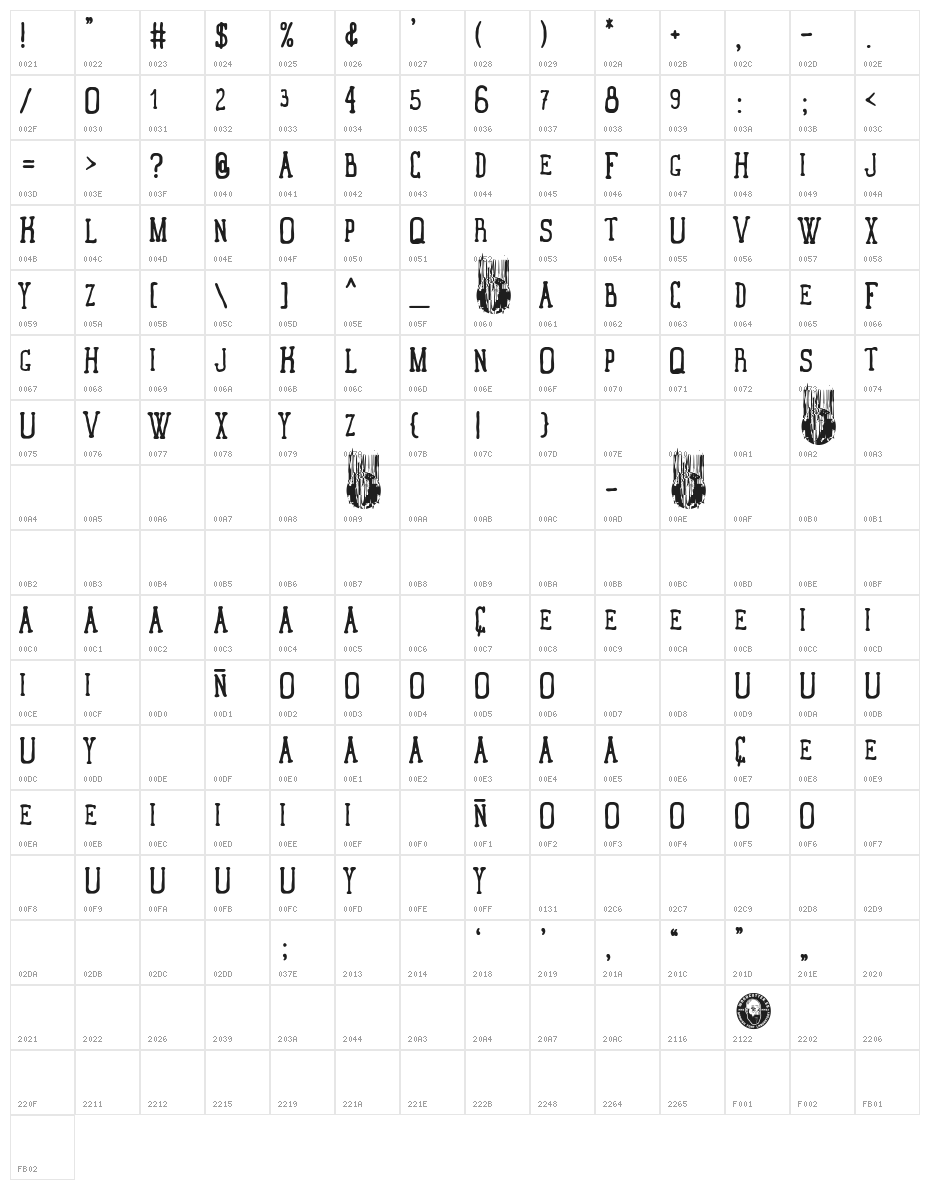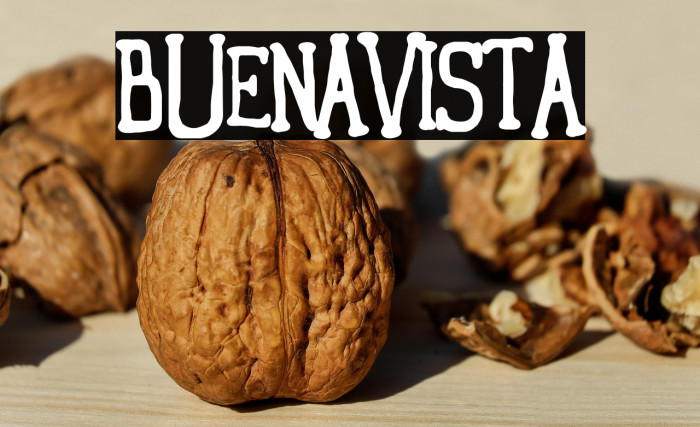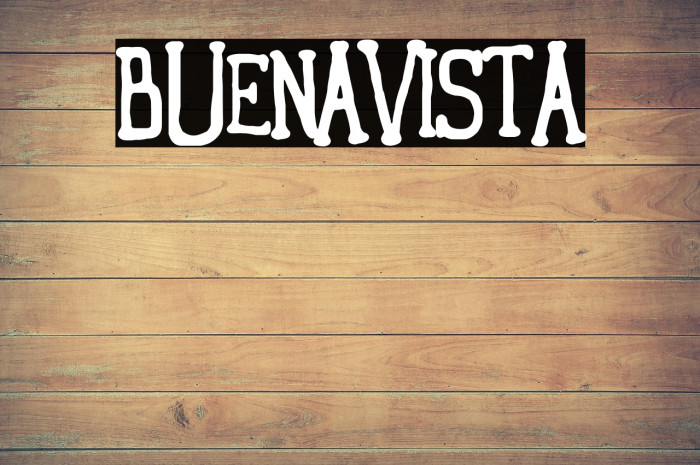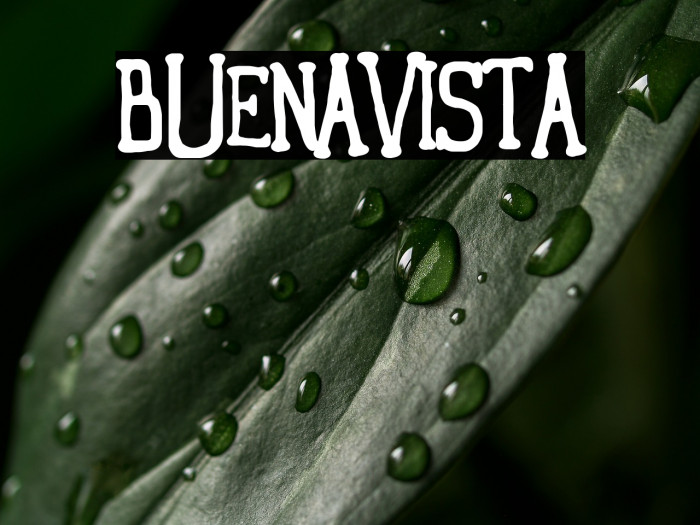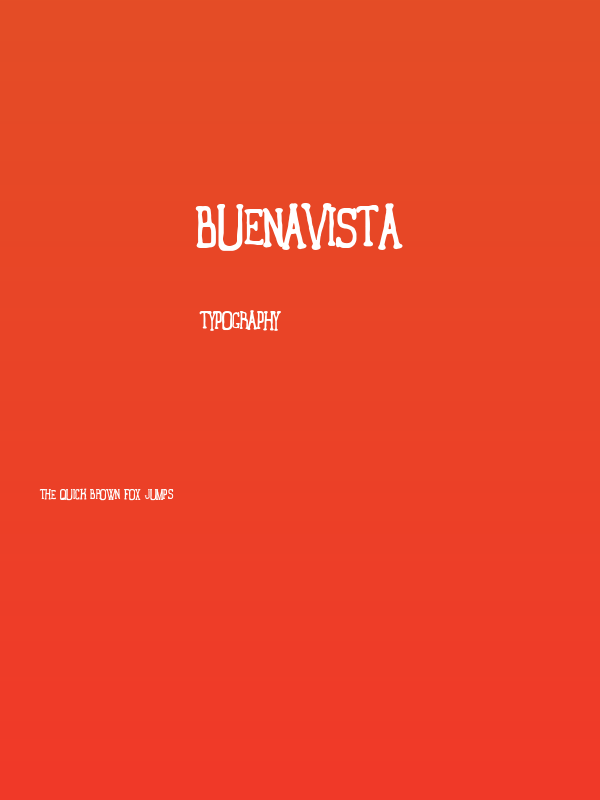
Buenavista Font
Buenavista Description
This font features a bold and playful design with a hand-drawn aesthetic. The characters are slightly irregular, giving it a whimsical and organic feel. The uppercase and lowercase letters maintain a consistent style, with rounded edges and a slightly condensed form. The numbers and special characters follow the same playful theme, making it suitable for creative and informal projects. The overall appearance is both eye-catching and approachable, ideal for designs that require a touch of personality and uniqueness.
| Proposed Projects | Ideal for children's books, playful branding, creative posters, and informal invitations. |